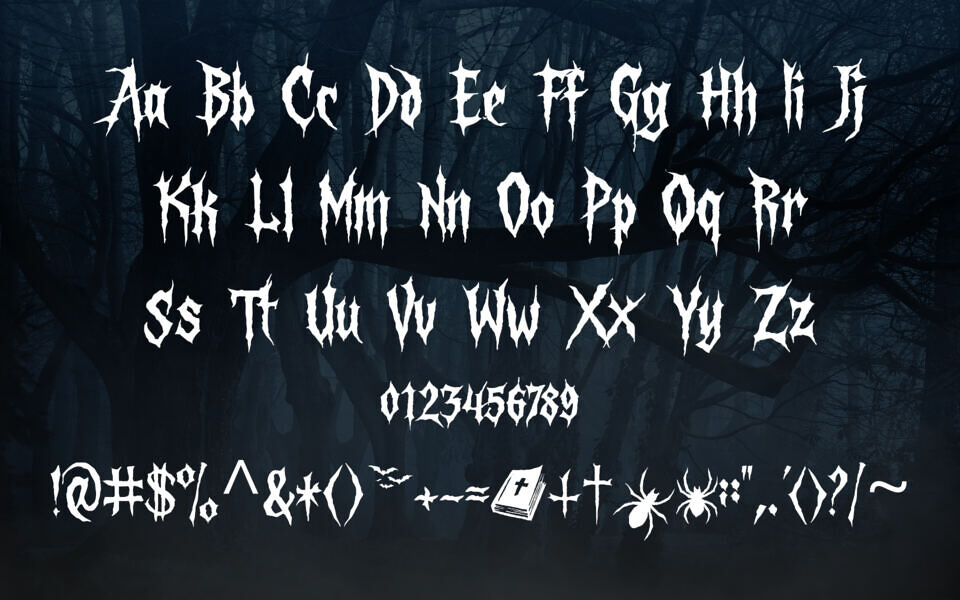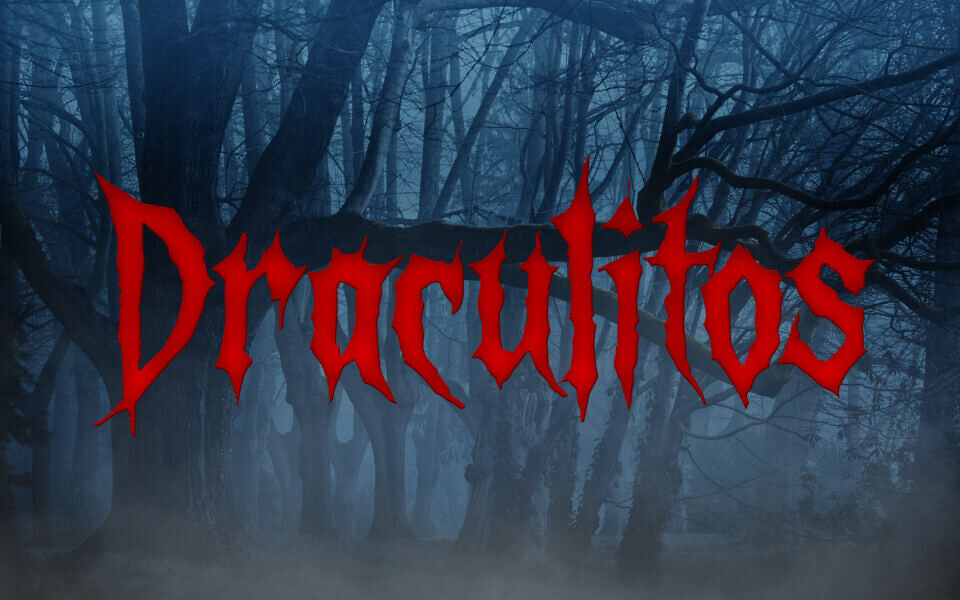
Draculitos Font
Draculitos is a bold gothic font by BlackFridayFont FMF, exuding a dark vampire-inspired aesthetic, eerie vibe with sharp, jagged edges and dramatic flourishes. Its uppercase and lowercase letters, numbers, and symbols feature a menacing, spiky design, perfect for horror-themed projects.